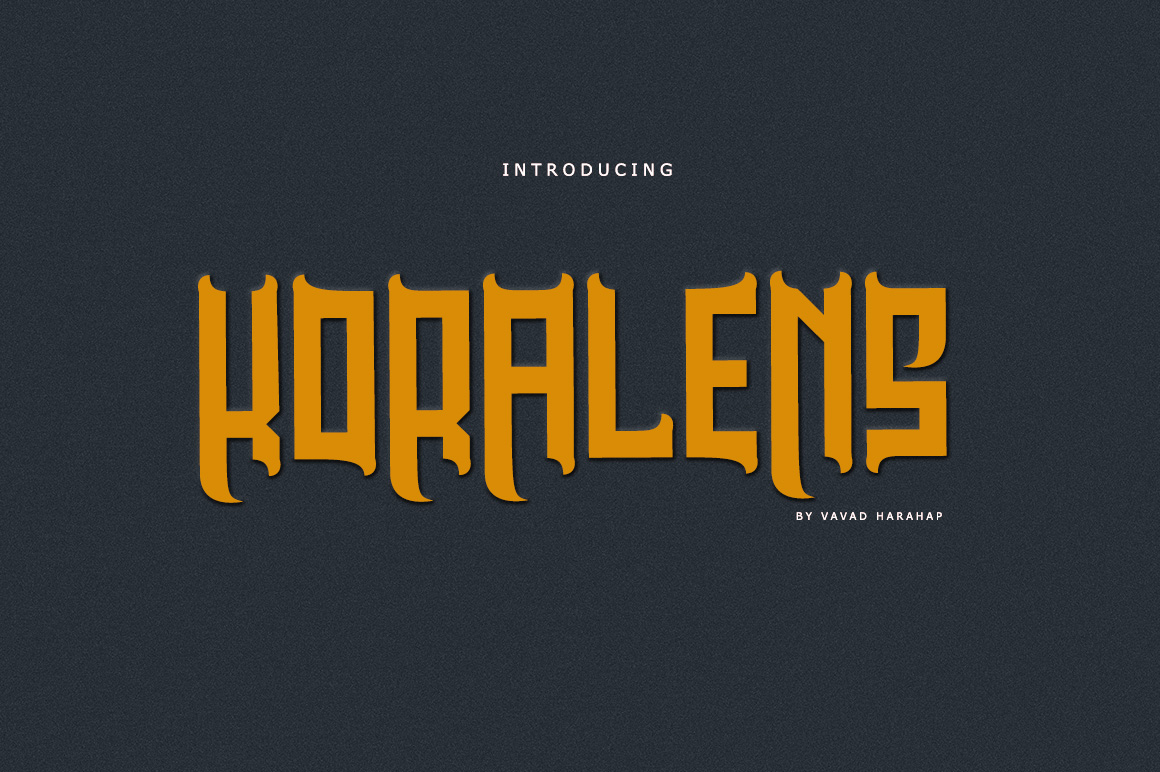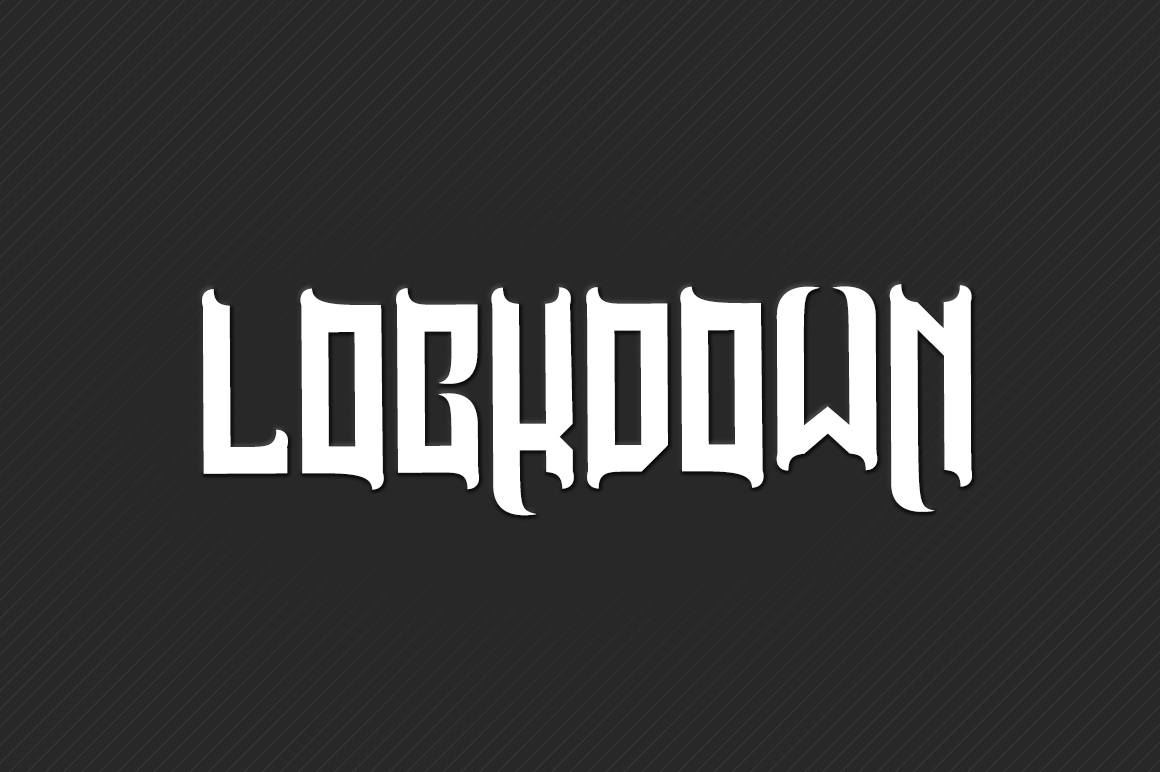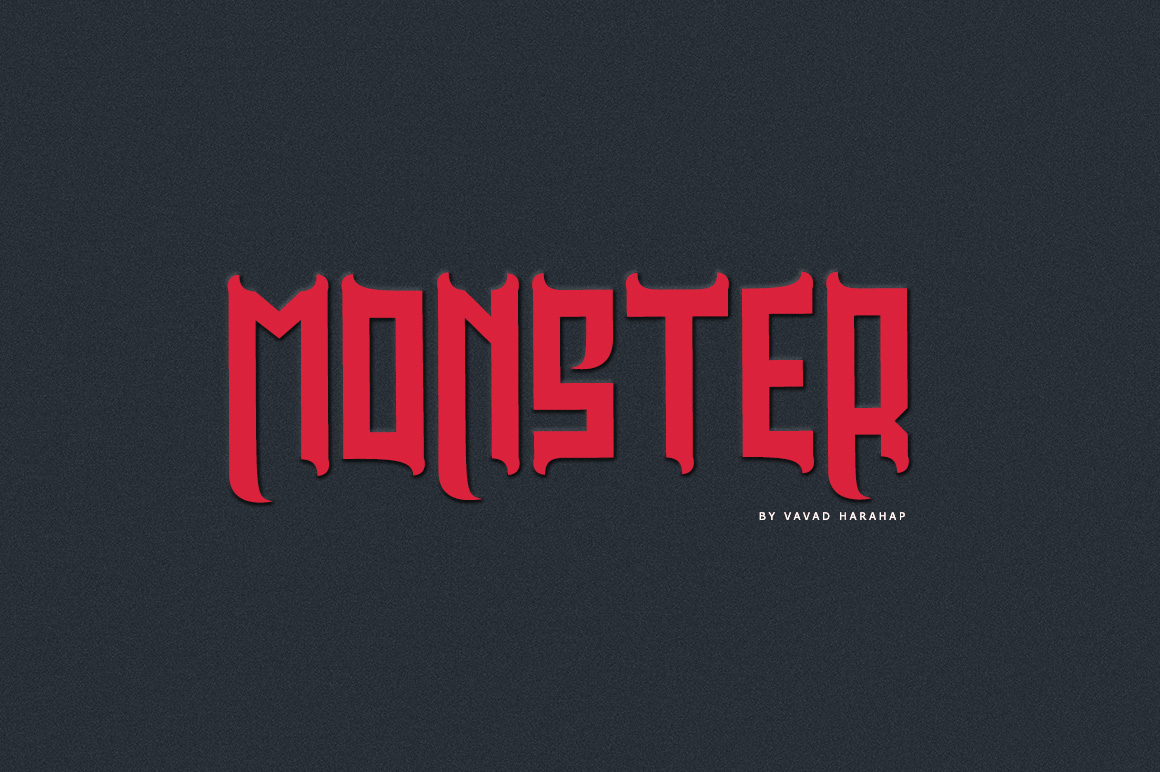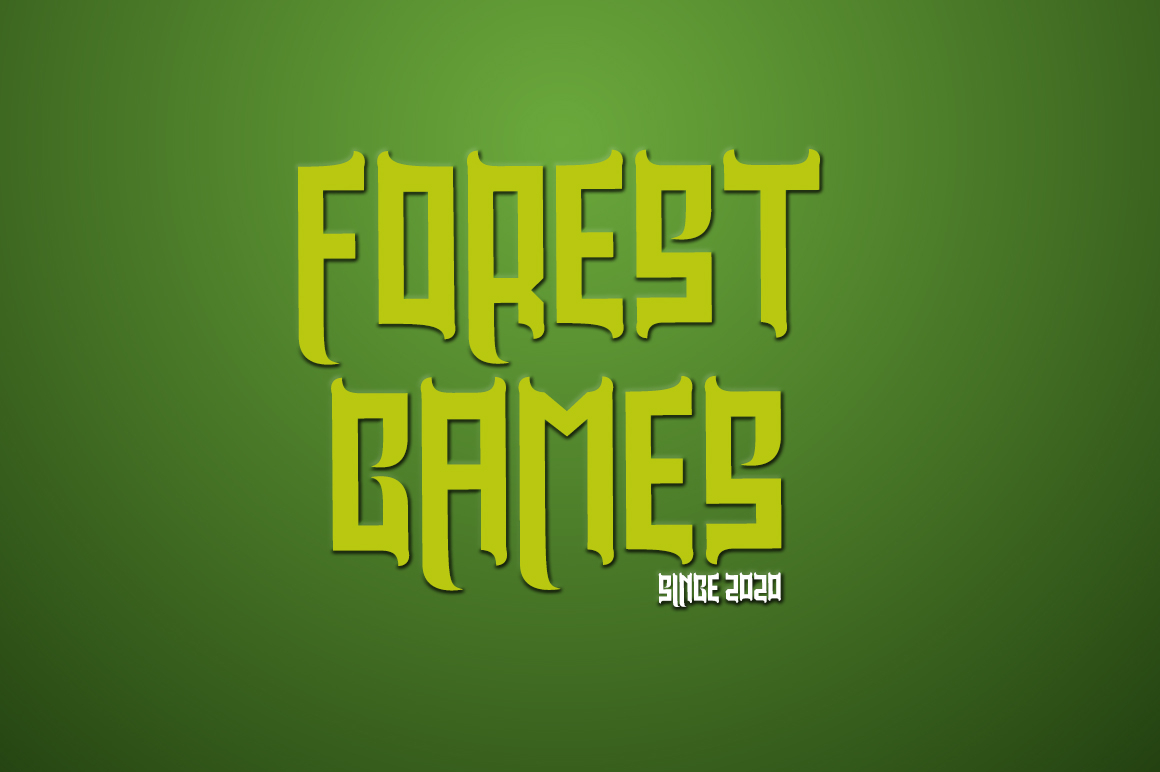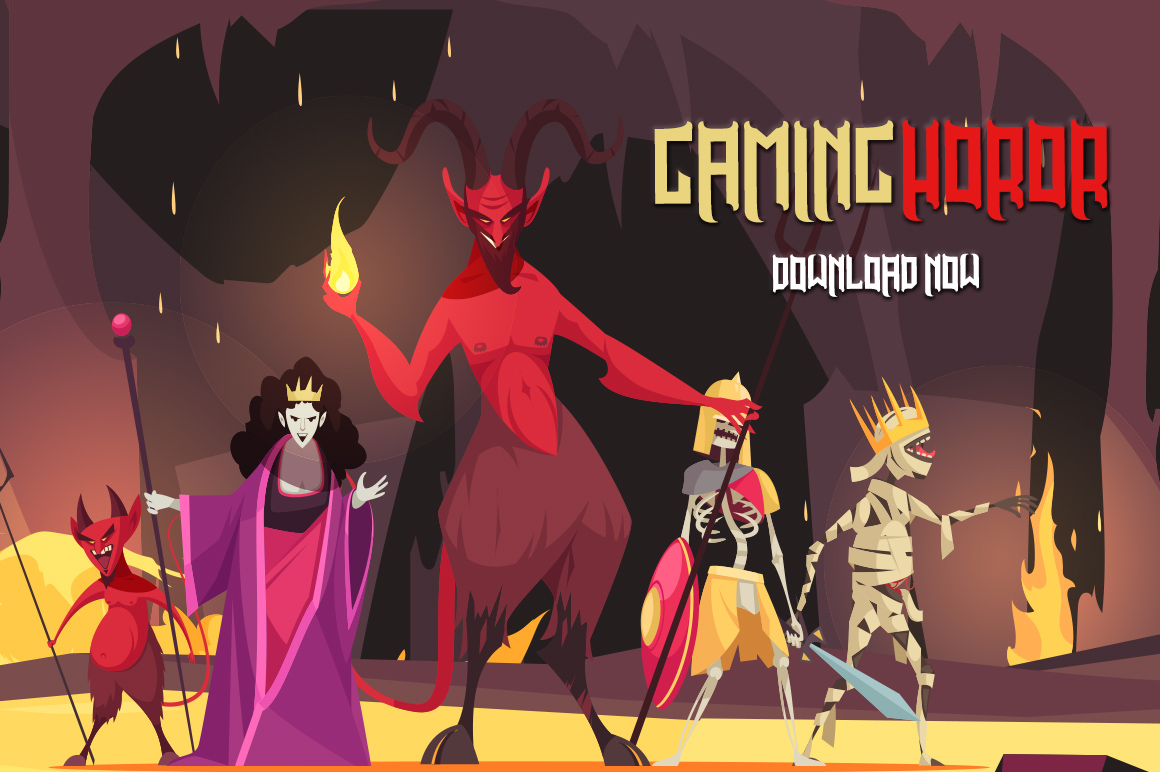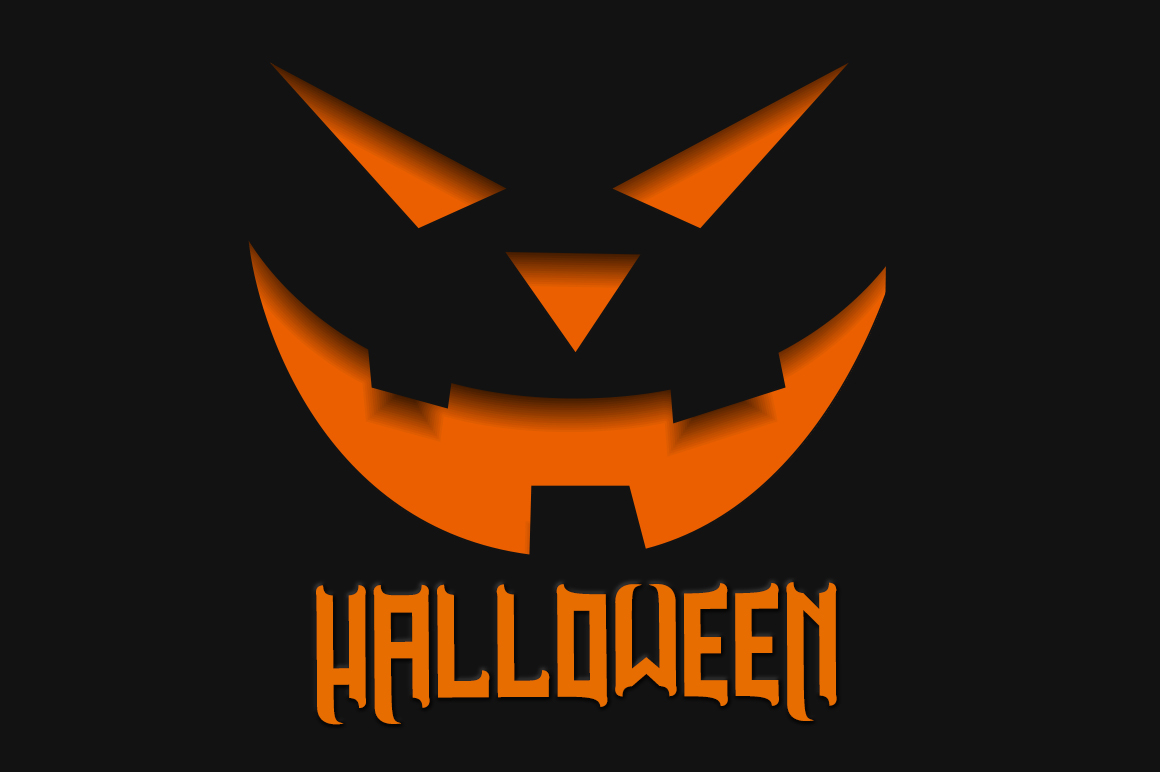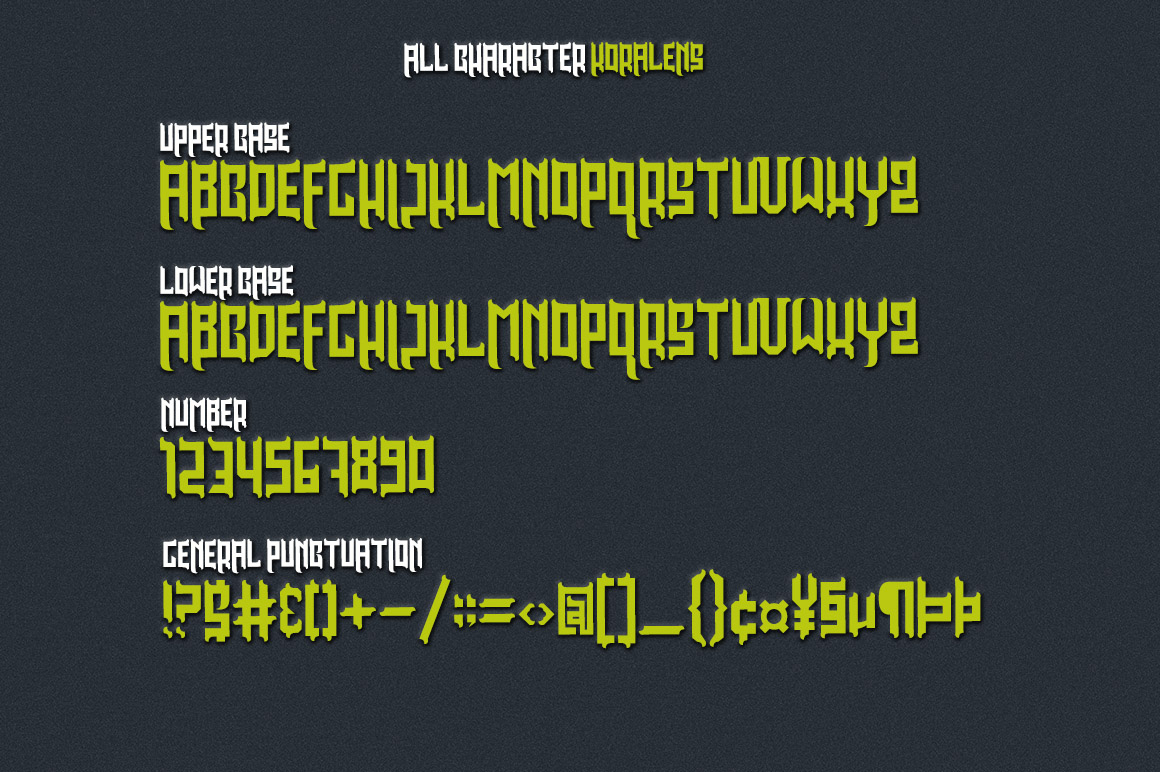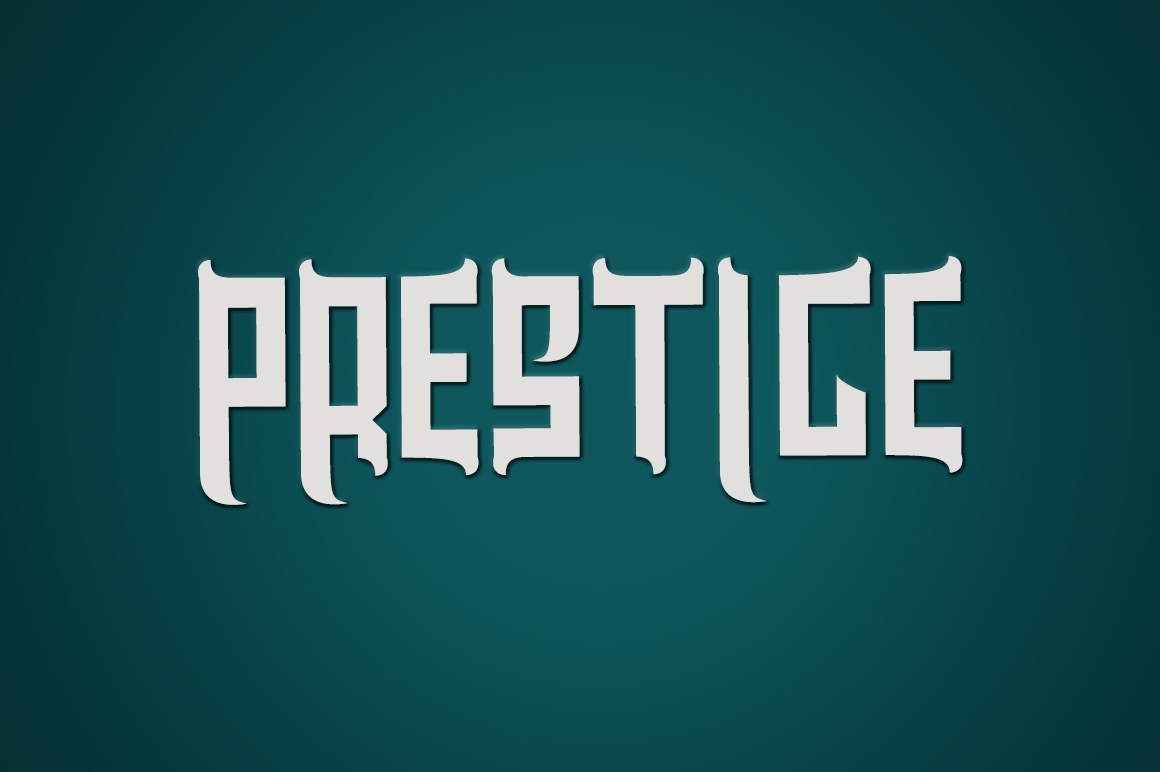
Koralens Font
About Koralens Font
Koralens is a bold and incredibly unique blackletter font. Dramatic and a bit creepy, this font will most certainly make each of your posters stand out.